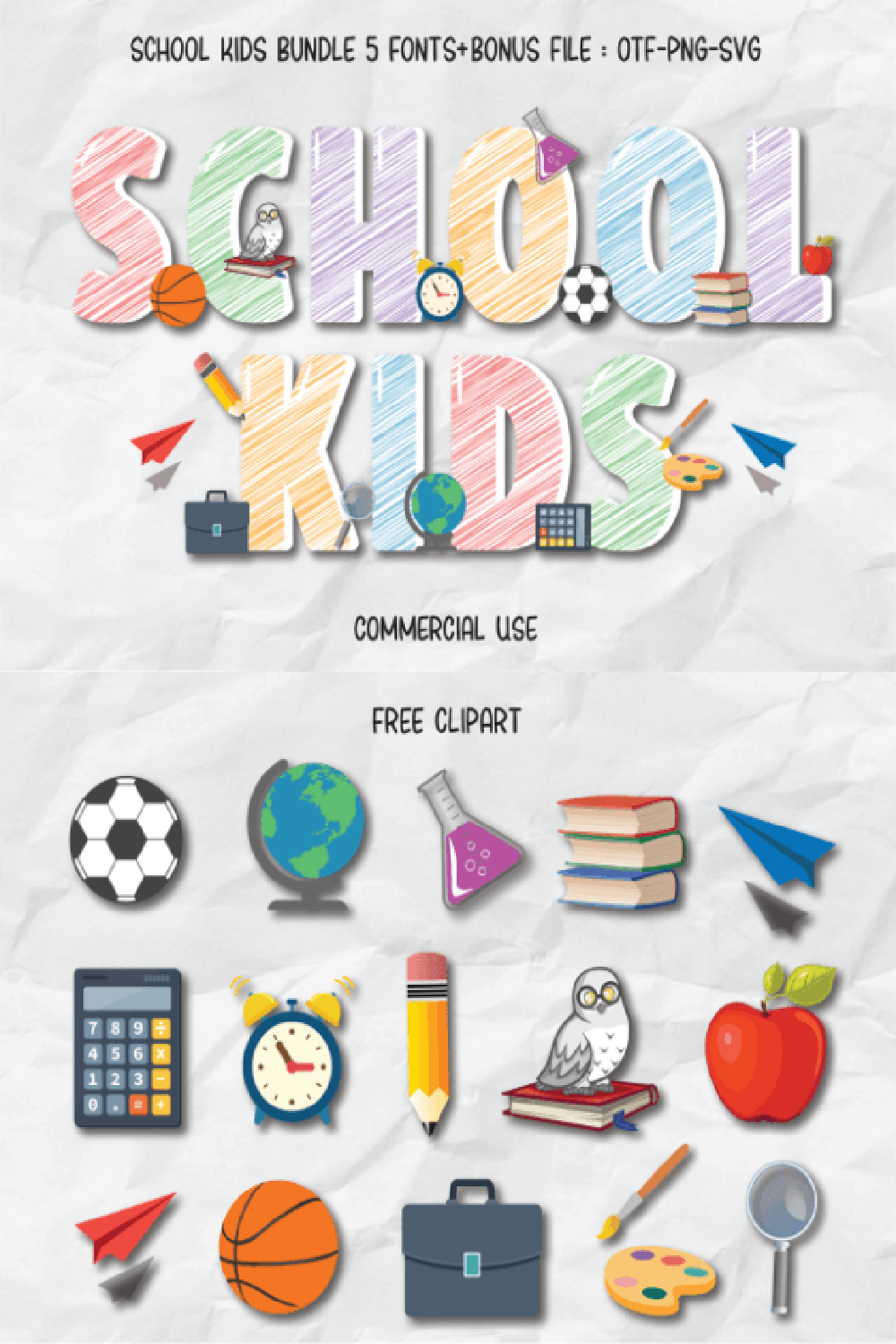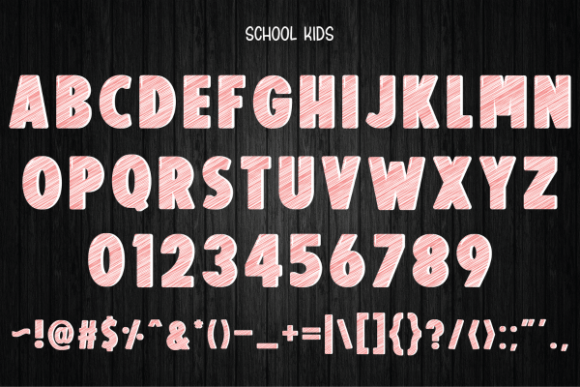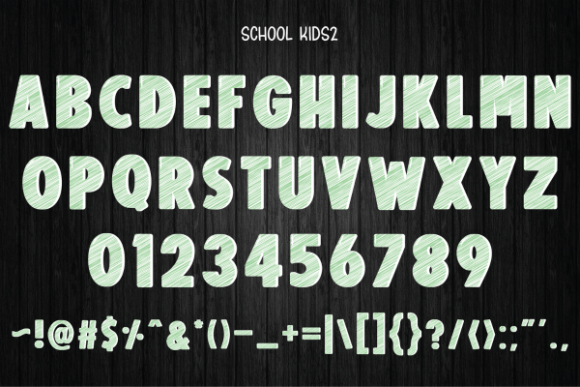
School Kids Font
About the School Kids Font
Step up your design game with School Kids Font, a font that exudes confidence and style. Meet ‘School Kids font,’ a remarkably bold font bursting with distinctive hues that captivate and charm. This extraordinary typeface sets its mark with a unique design, making it an unmatched choice for a spectrum of inventive projects. Its delightful allure makes ‘School’ a perfect fit for children’s entertainment and didactic themes, adding a playful and engaging ambiance to any design project. This robust, vivid typeface carries an irresistible allure that can elevate your designs from ordinary to extraordinary.